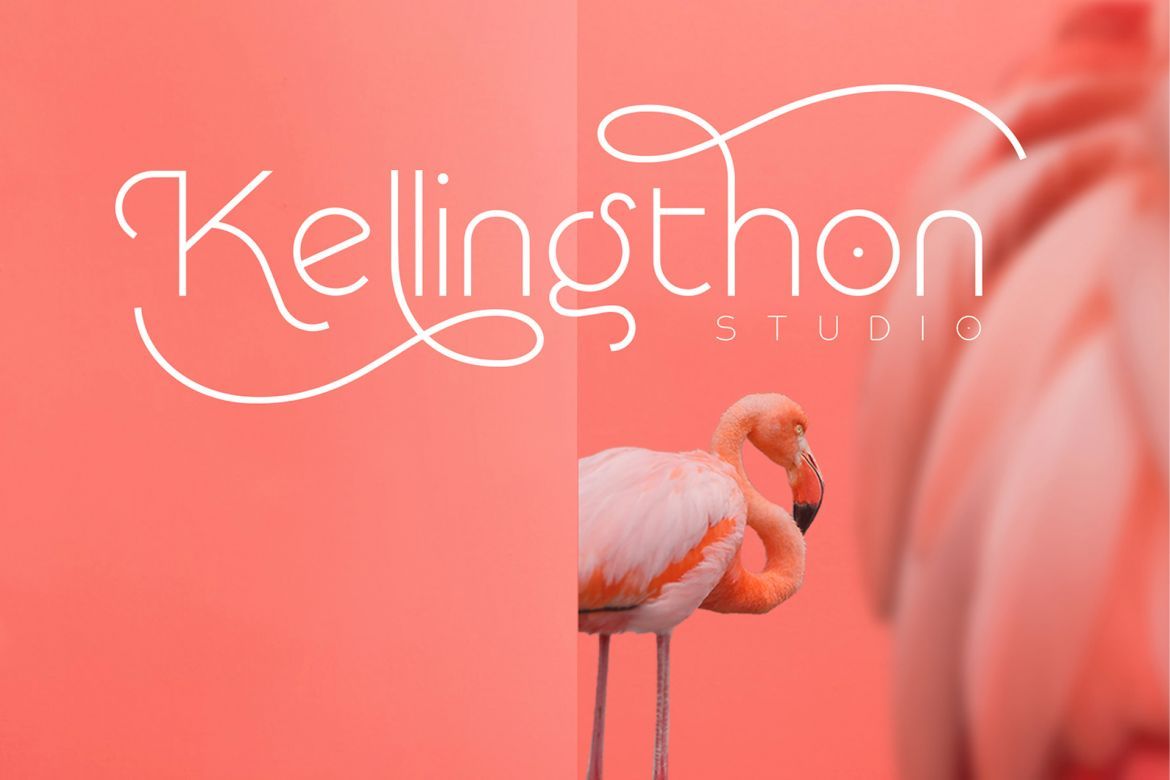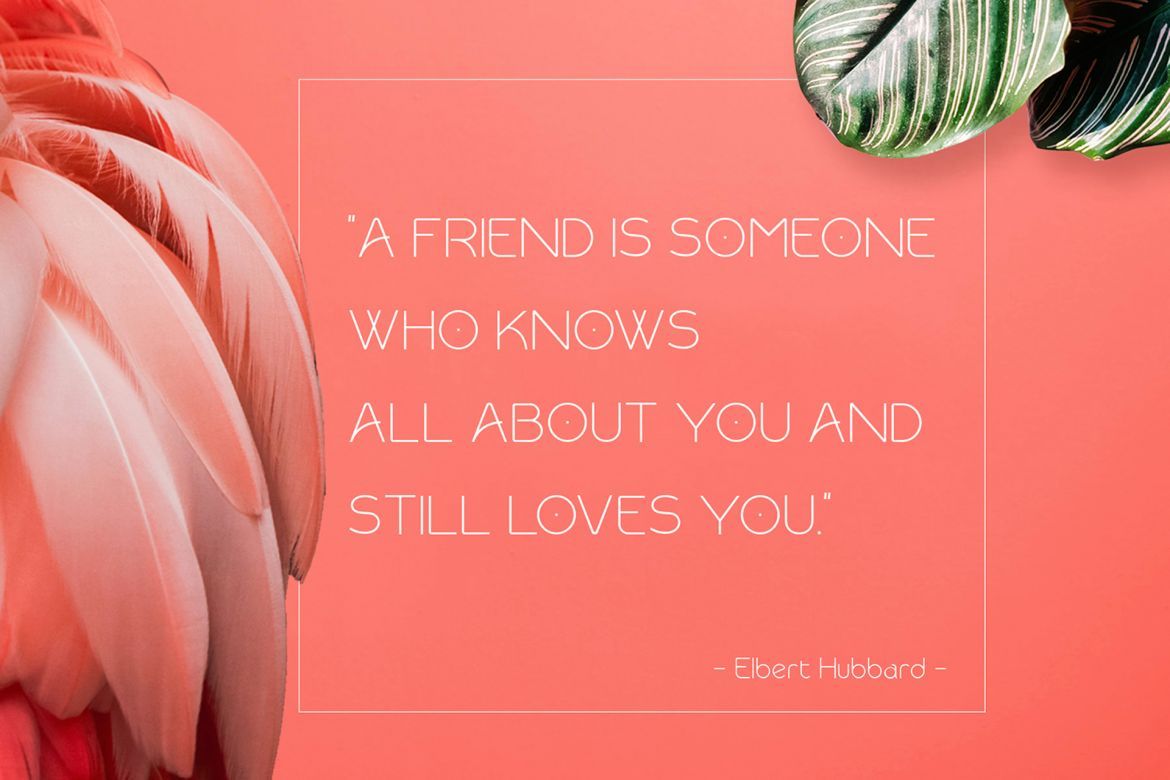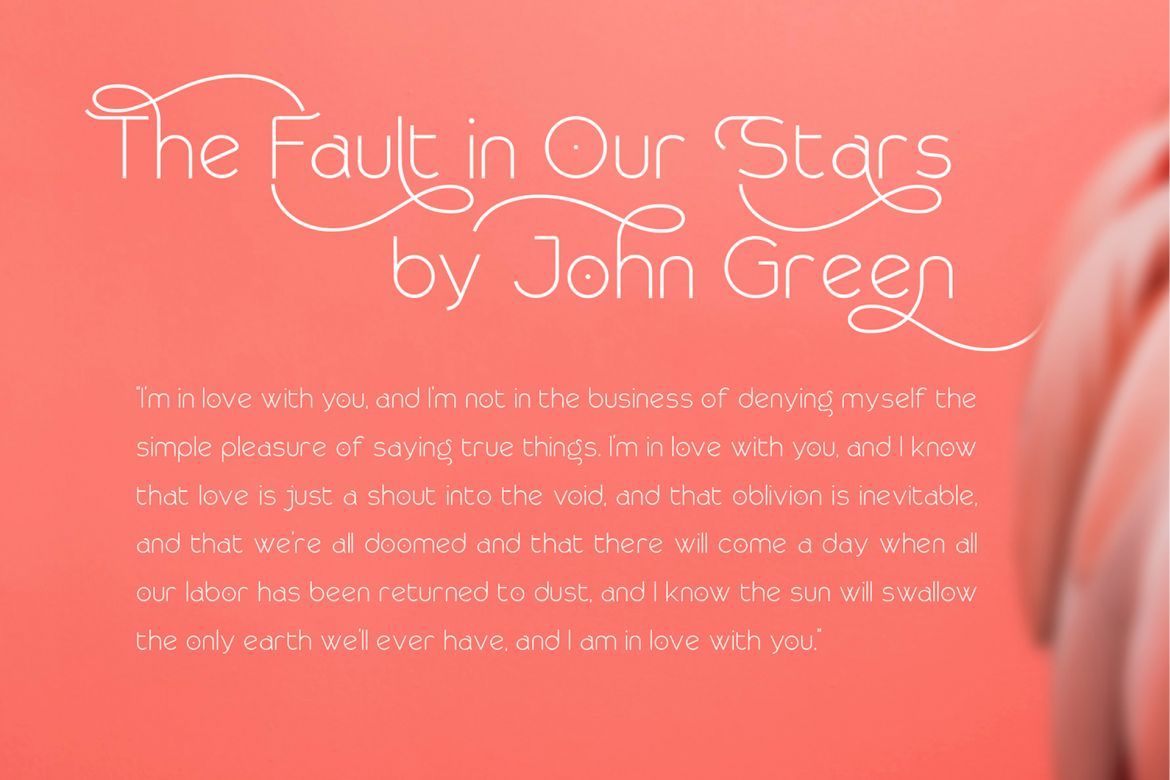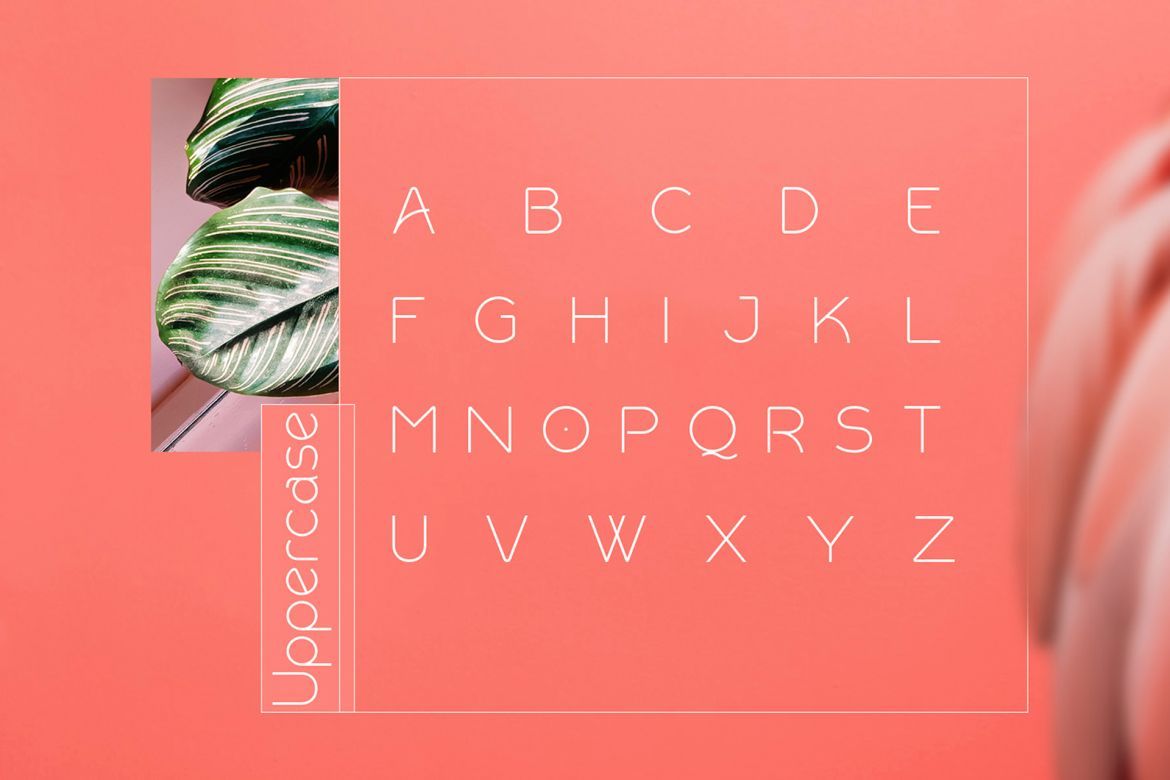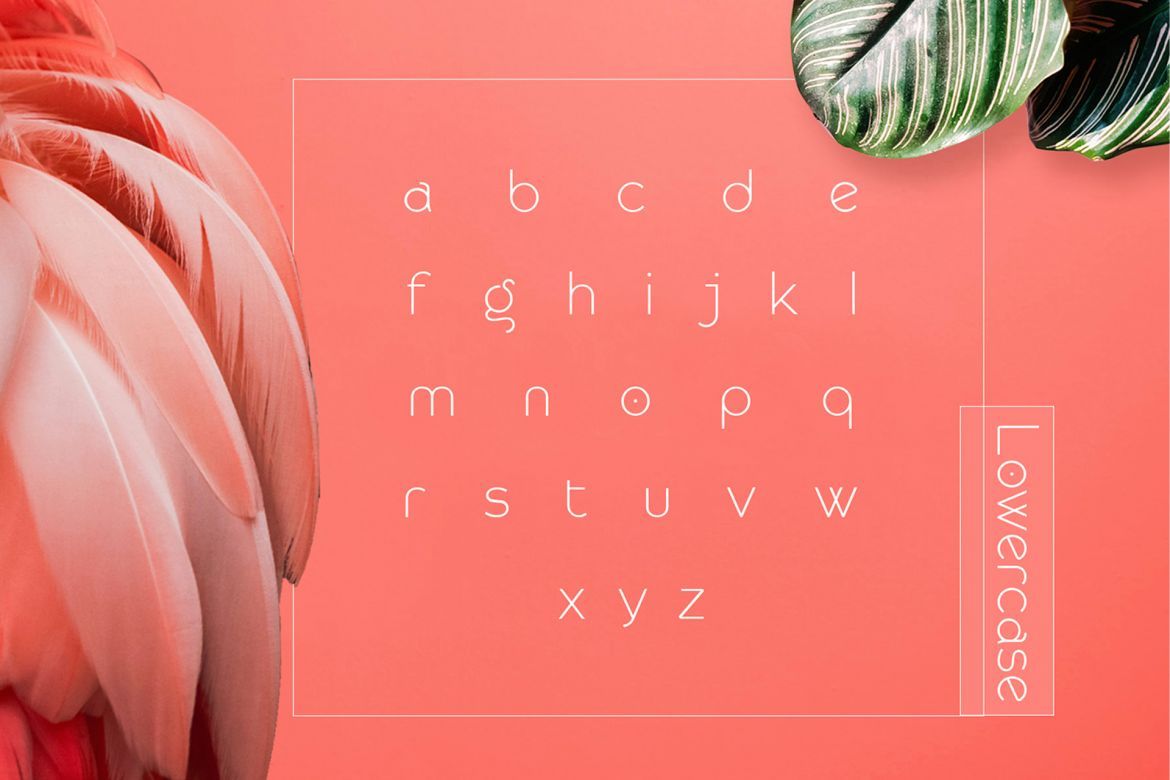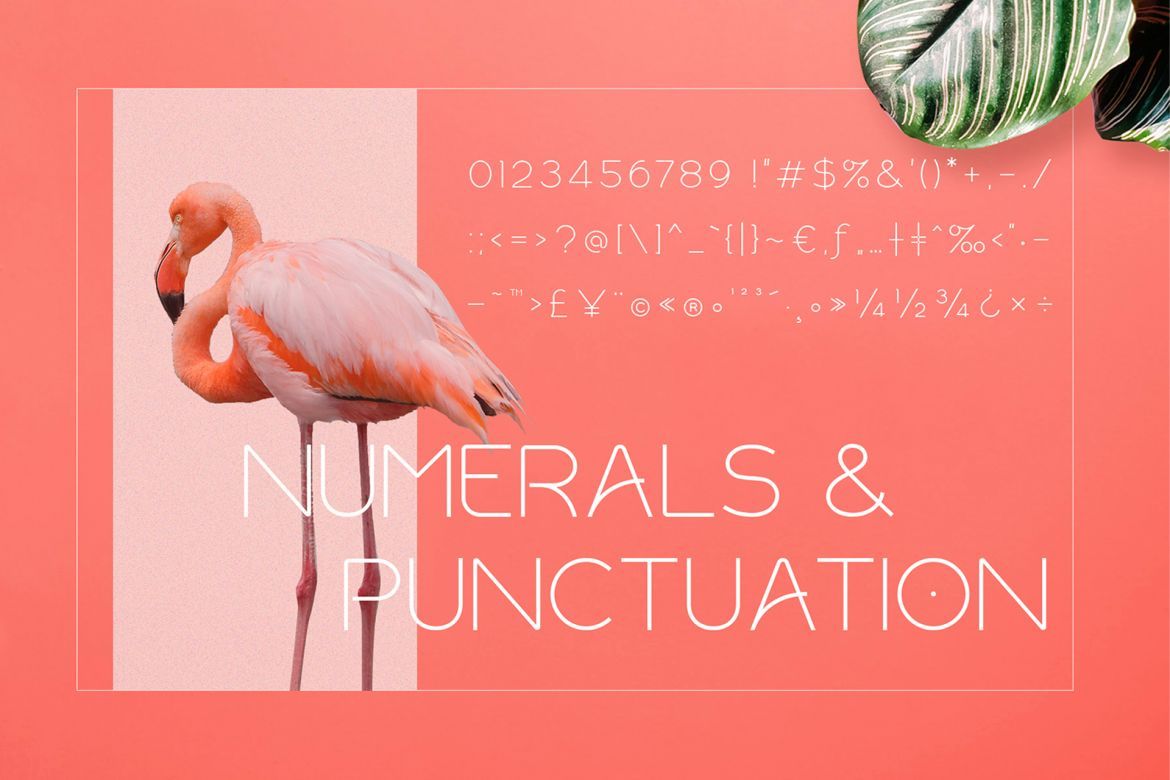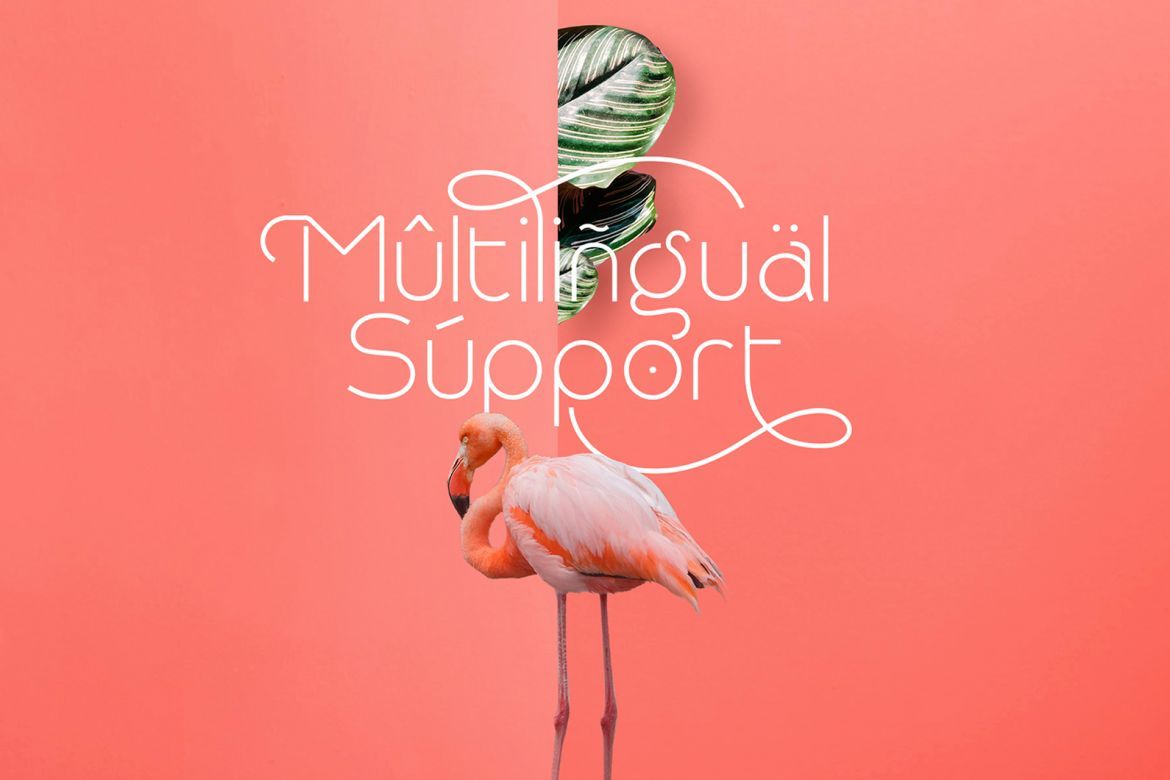
Rollgates Font
Rollgates - An Modern Sans Serif and minimalist character! it's perfect for logos, name card, magazine layouts, invitations, headers, or even large-scale artwork.
• it's perfect for headers, or even large-scale artwork.
• it's perfect for logos, name card, magazine layouts, invitations.